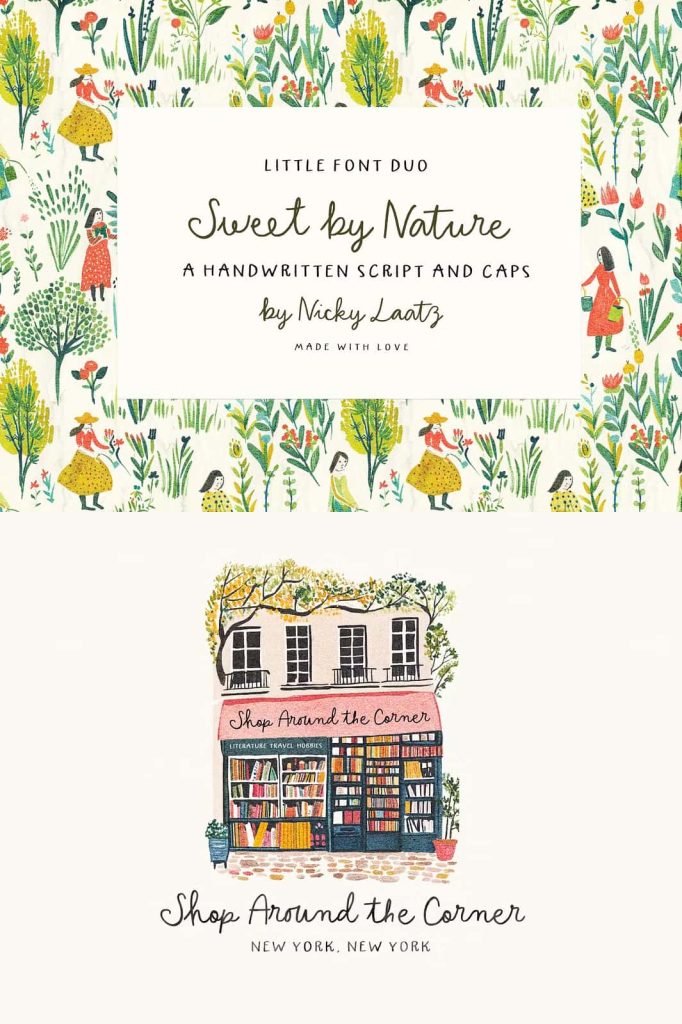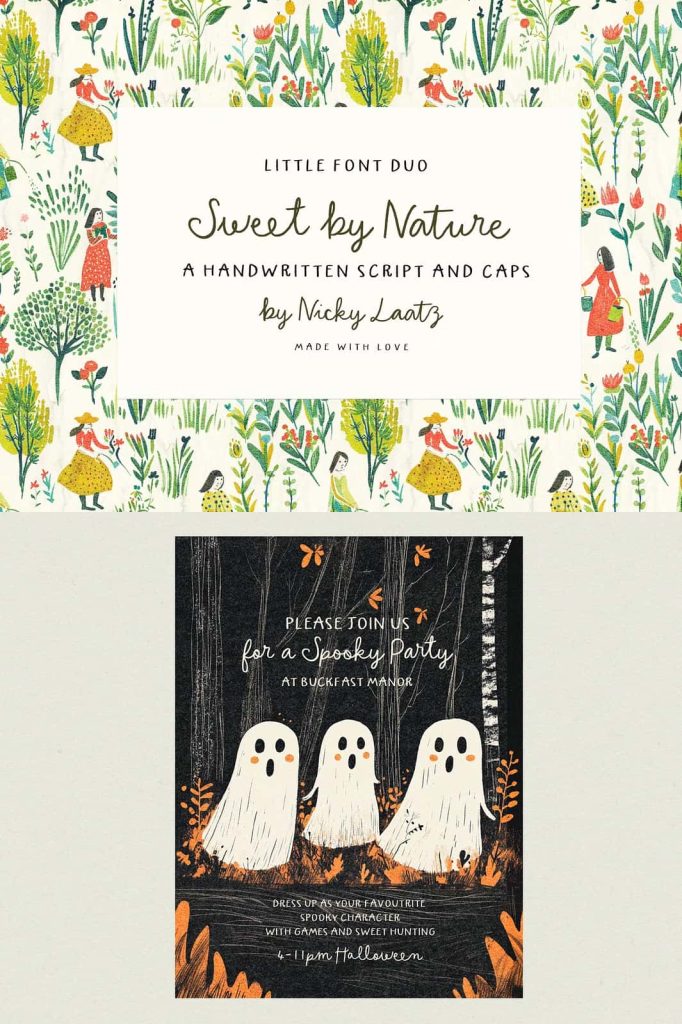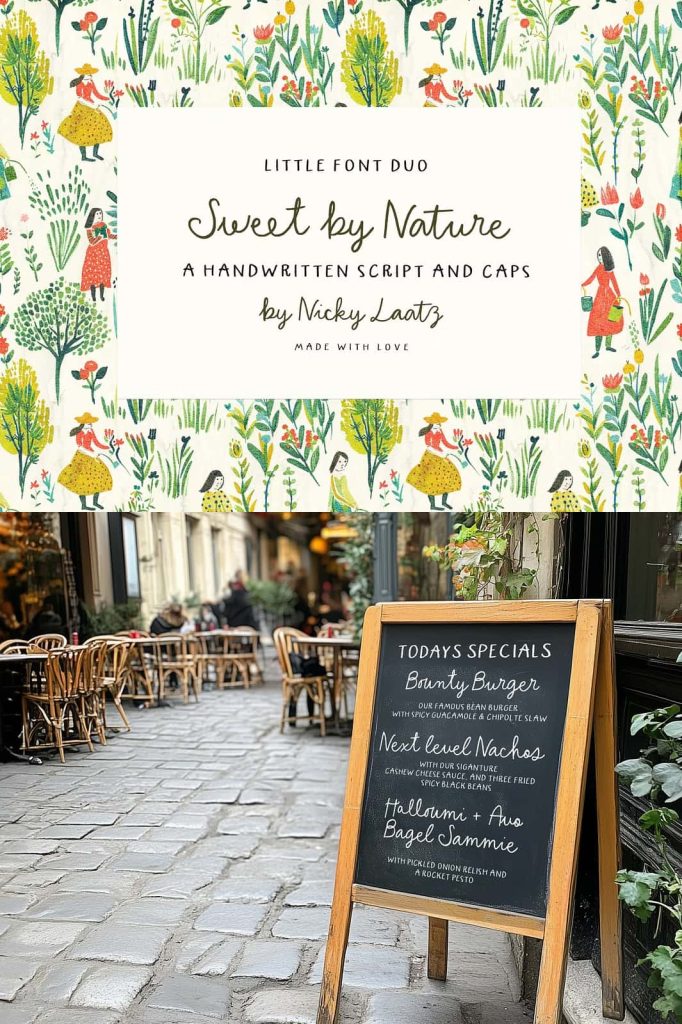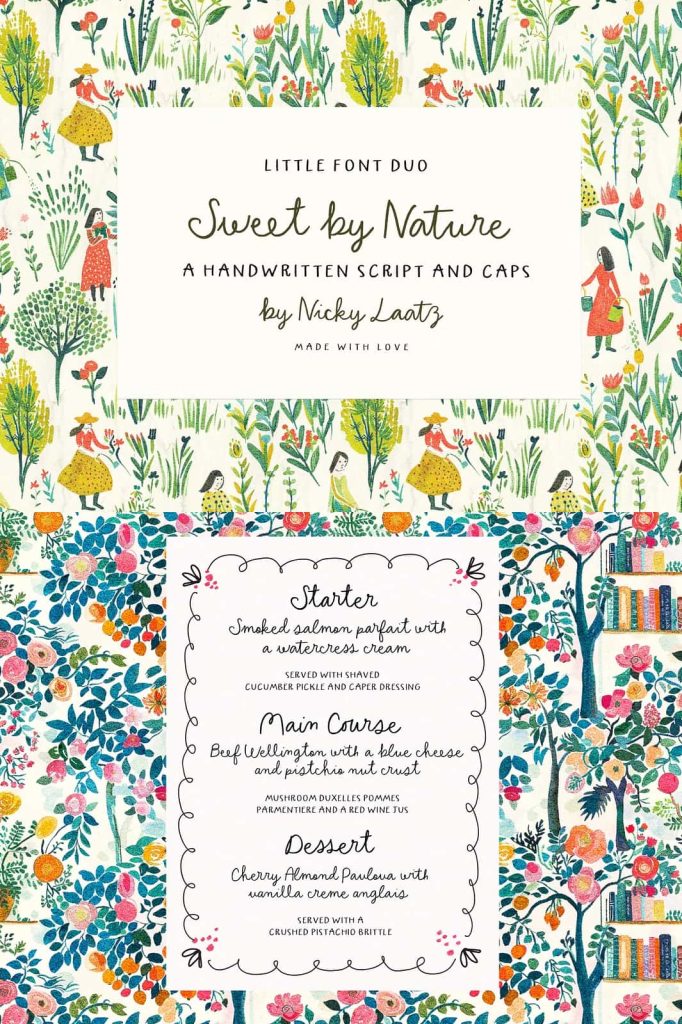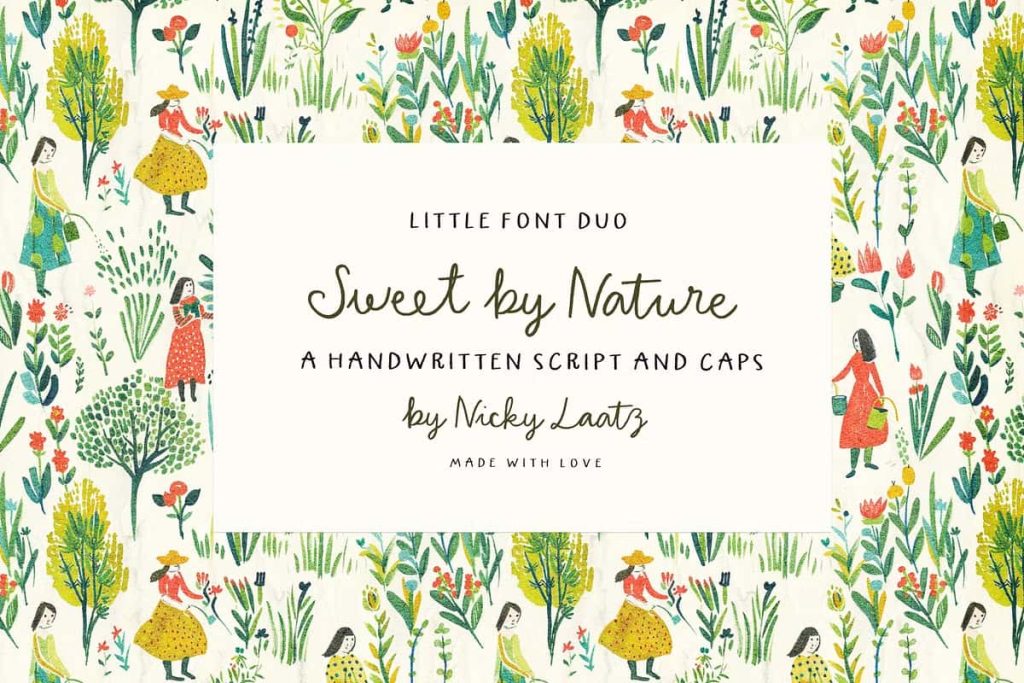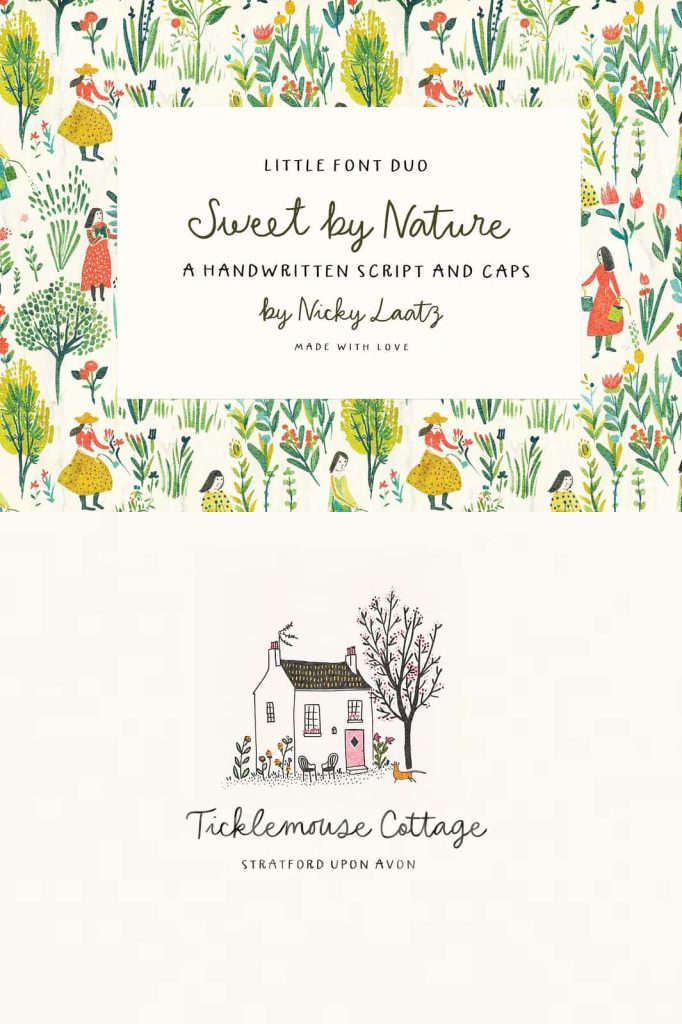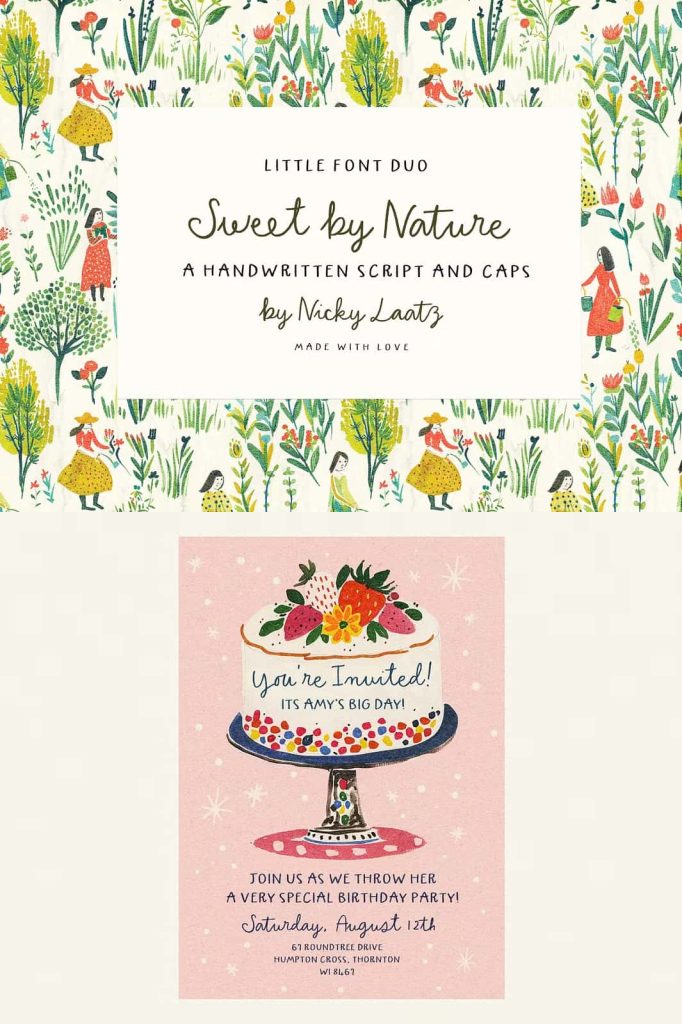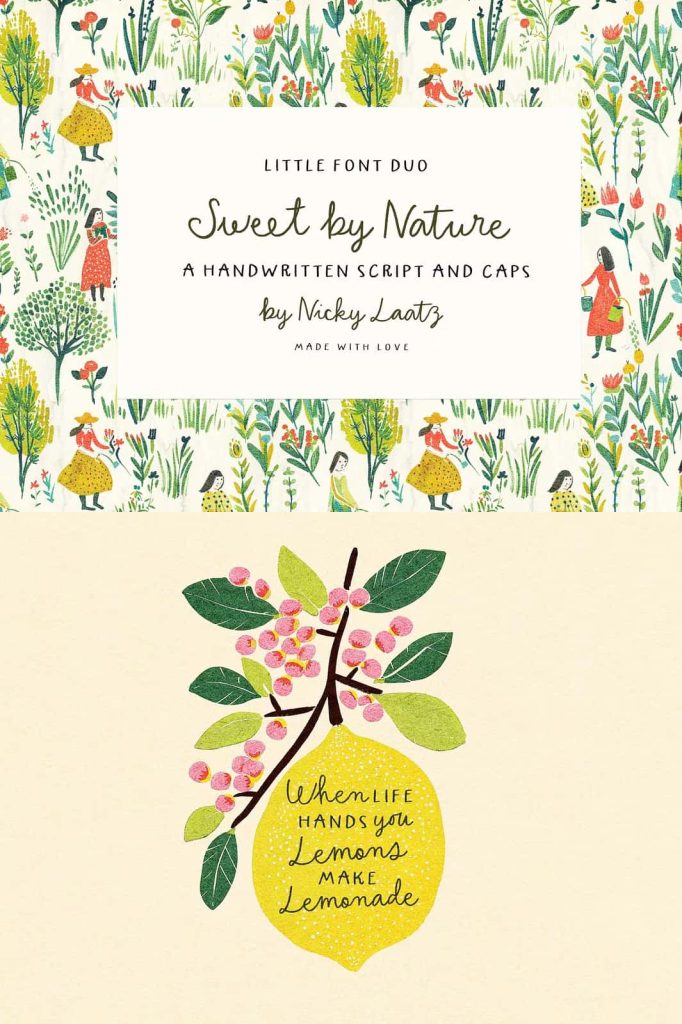
Say hello to ‘Sweet by Nature’! A whimsical little font duo, with a playful little handwritten script, and a quirky caps to match 🙂
Make sure you turn on your Opentype Ligatures, designed to pop up as you type, and make the script font look even more natural. If you don’t have any opentype capable software – no worries – it is PUA encoded, meaning you can copy the ligatures from your Fontbook/Charmap to your type line 🙂